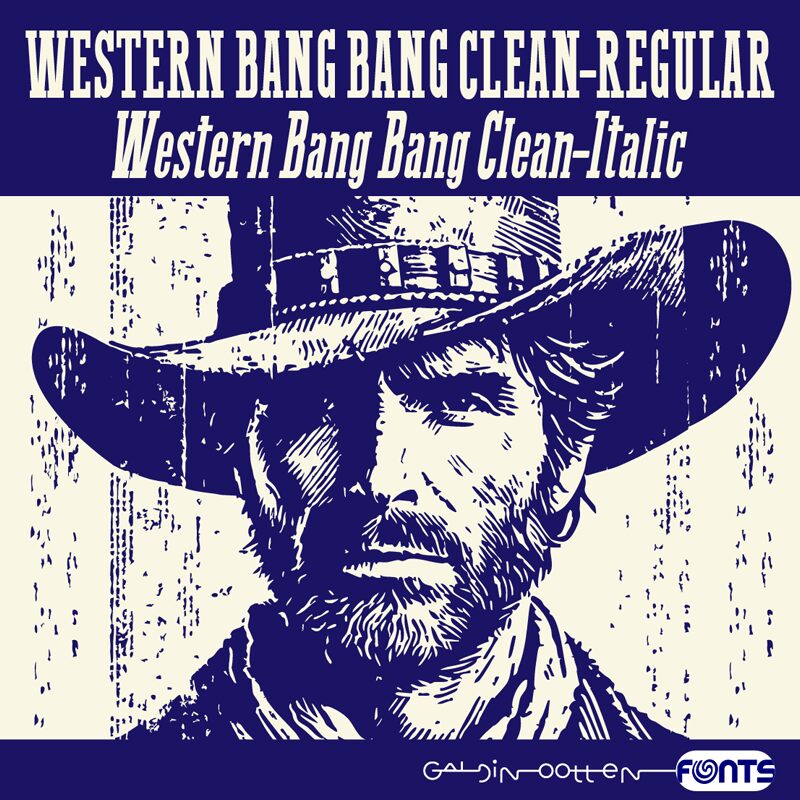
Western Bang Bang Clean
Western Bang Bang Clean font by Galdino Otten Fonts is a display typeface with a western style. Each character evokes nostalgia with vintage-inspired decorative elements while still preserving an overall condensed appearance. A strong presence will give your designs the necessary impact you plan on achieving.